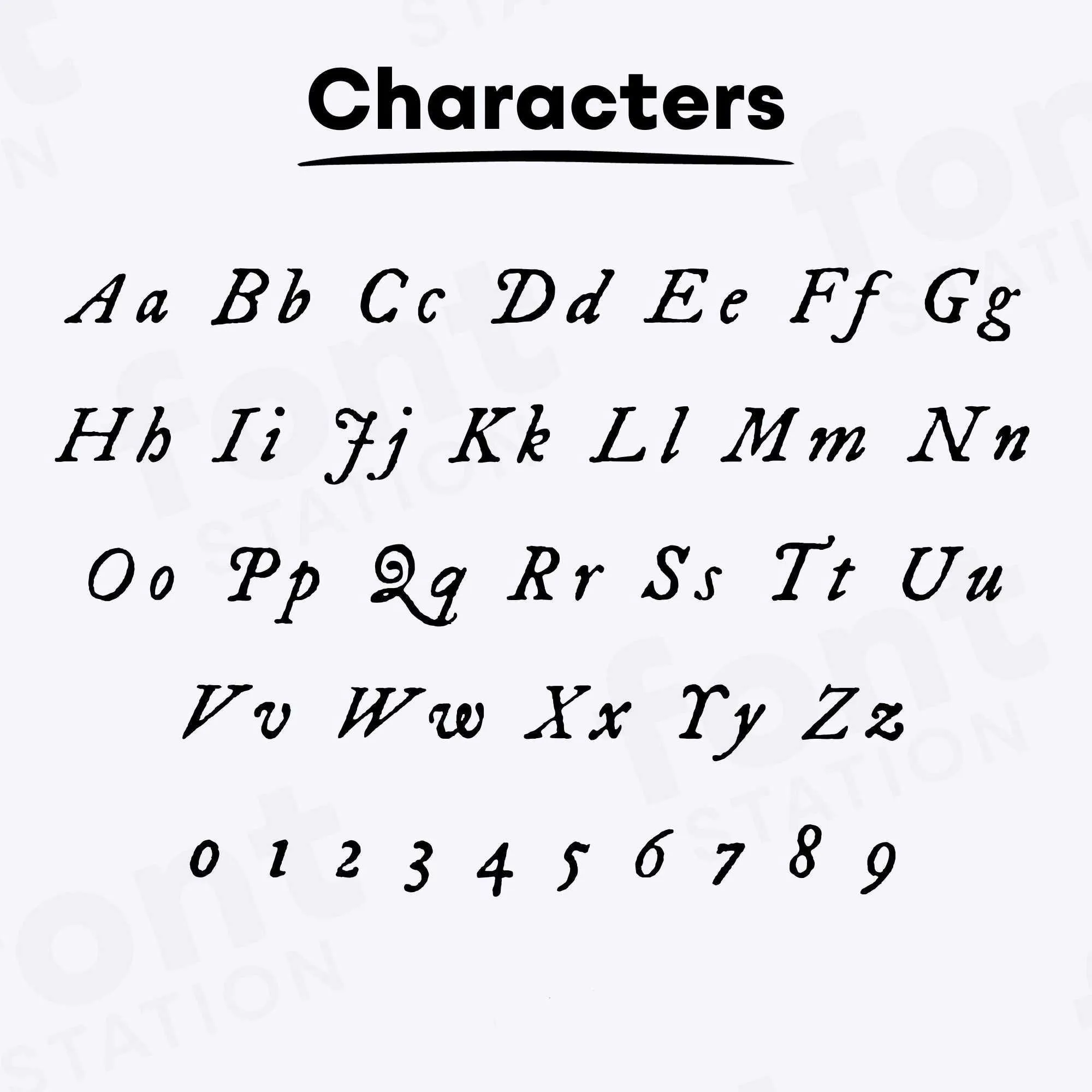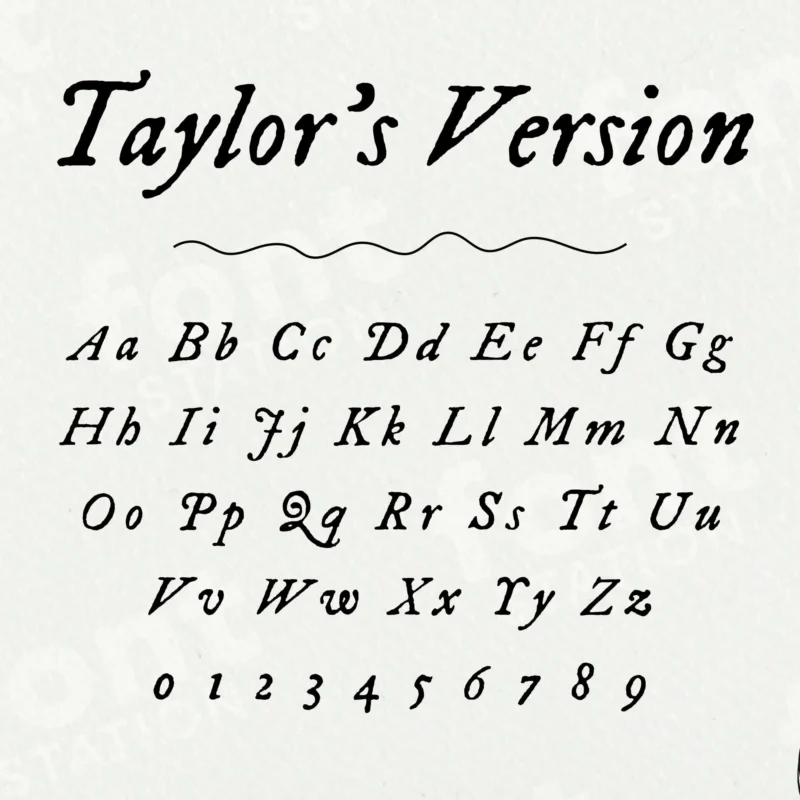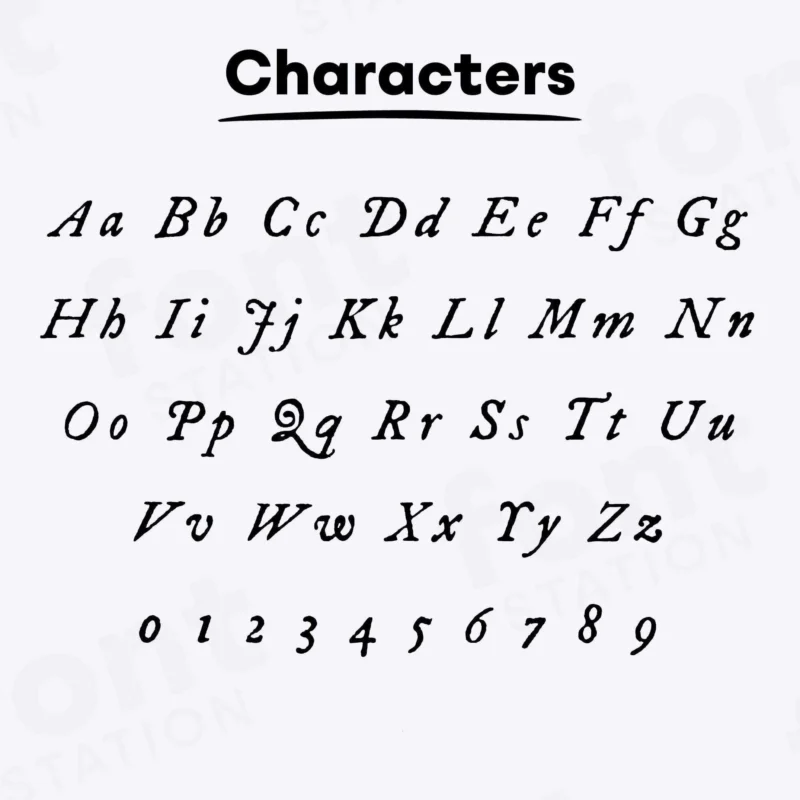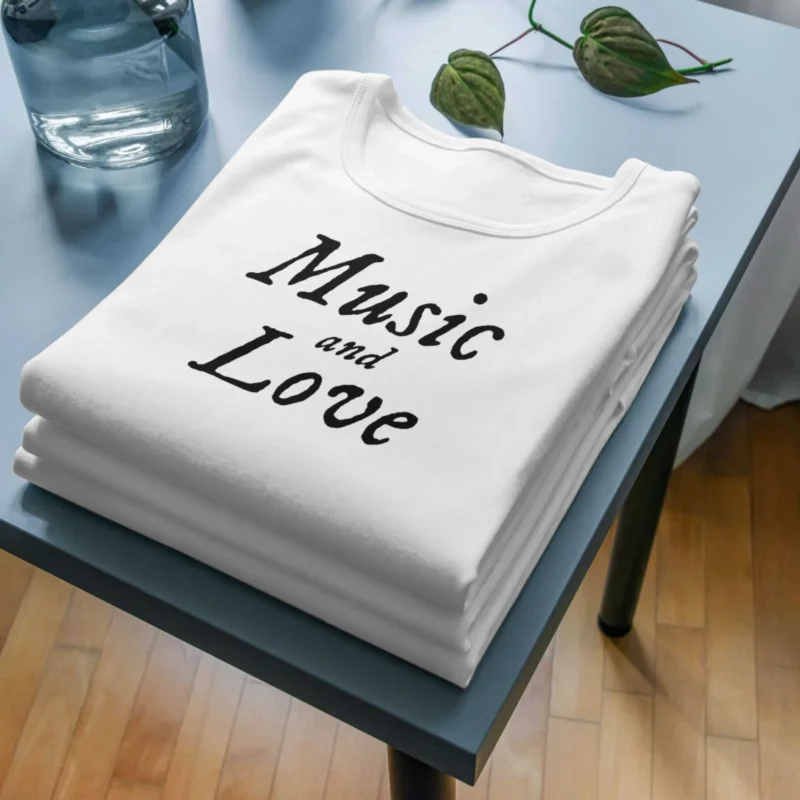
Our Folkloric Version typeface, inspired from Taylor’s Version Font
Grab your computer, tablet or other device and start creating right now with our Taylor’s Version font letters! Our Folkloric Version typography is inspired from Taylor’s Version font, making it ideal for various digital creations (logo, word…), sublimation, cake toppers, stickers, event decorations, and more.